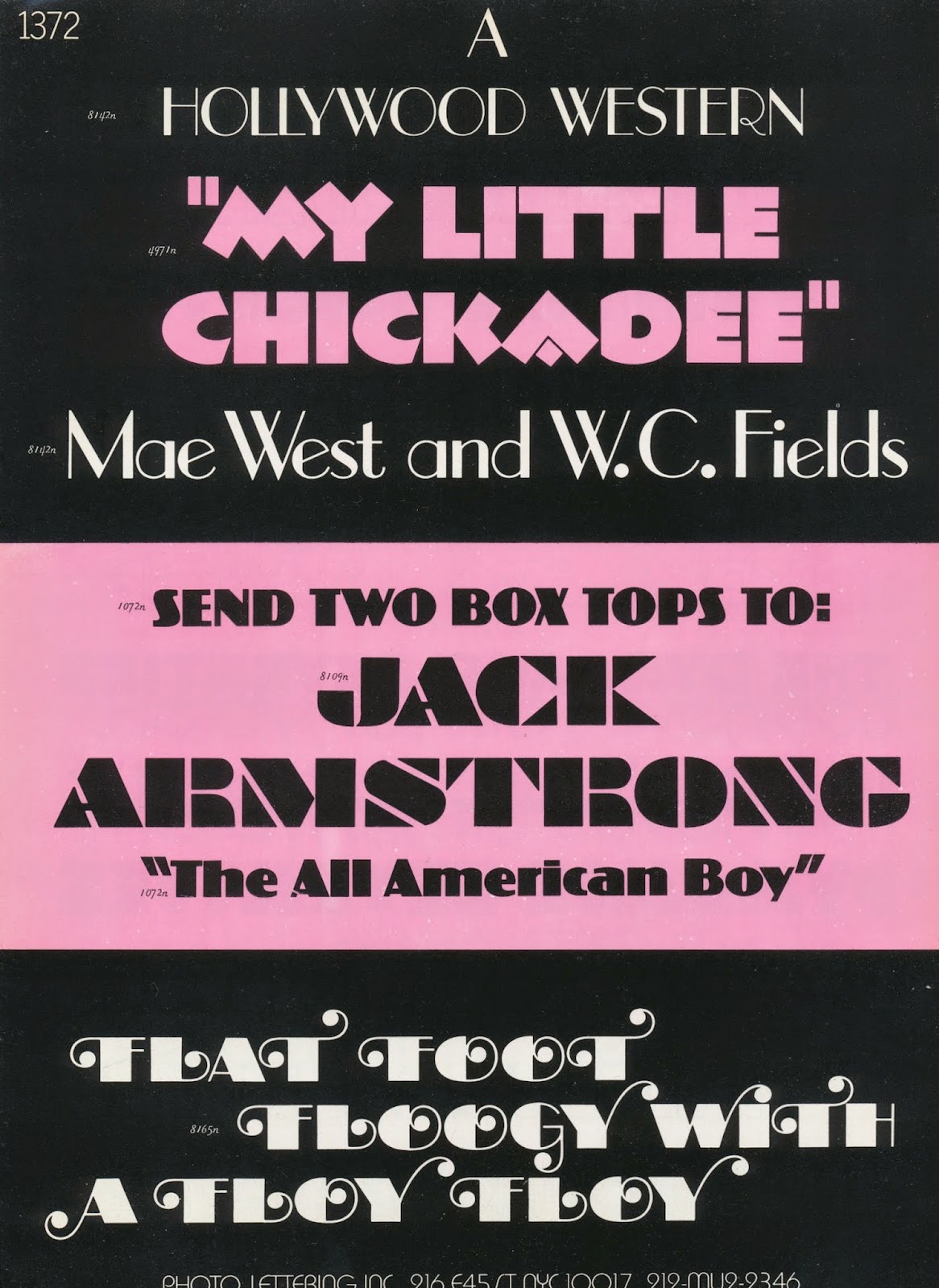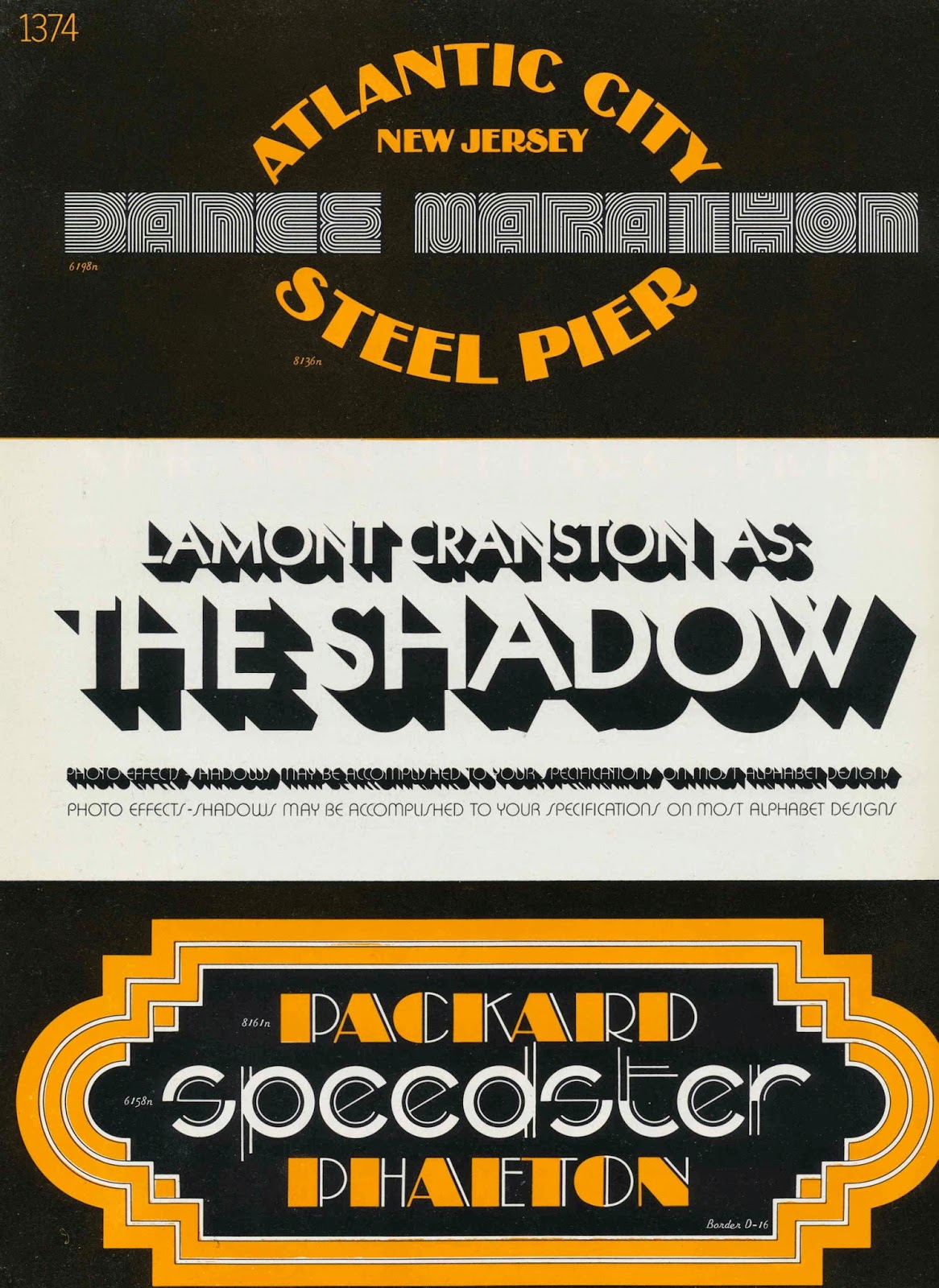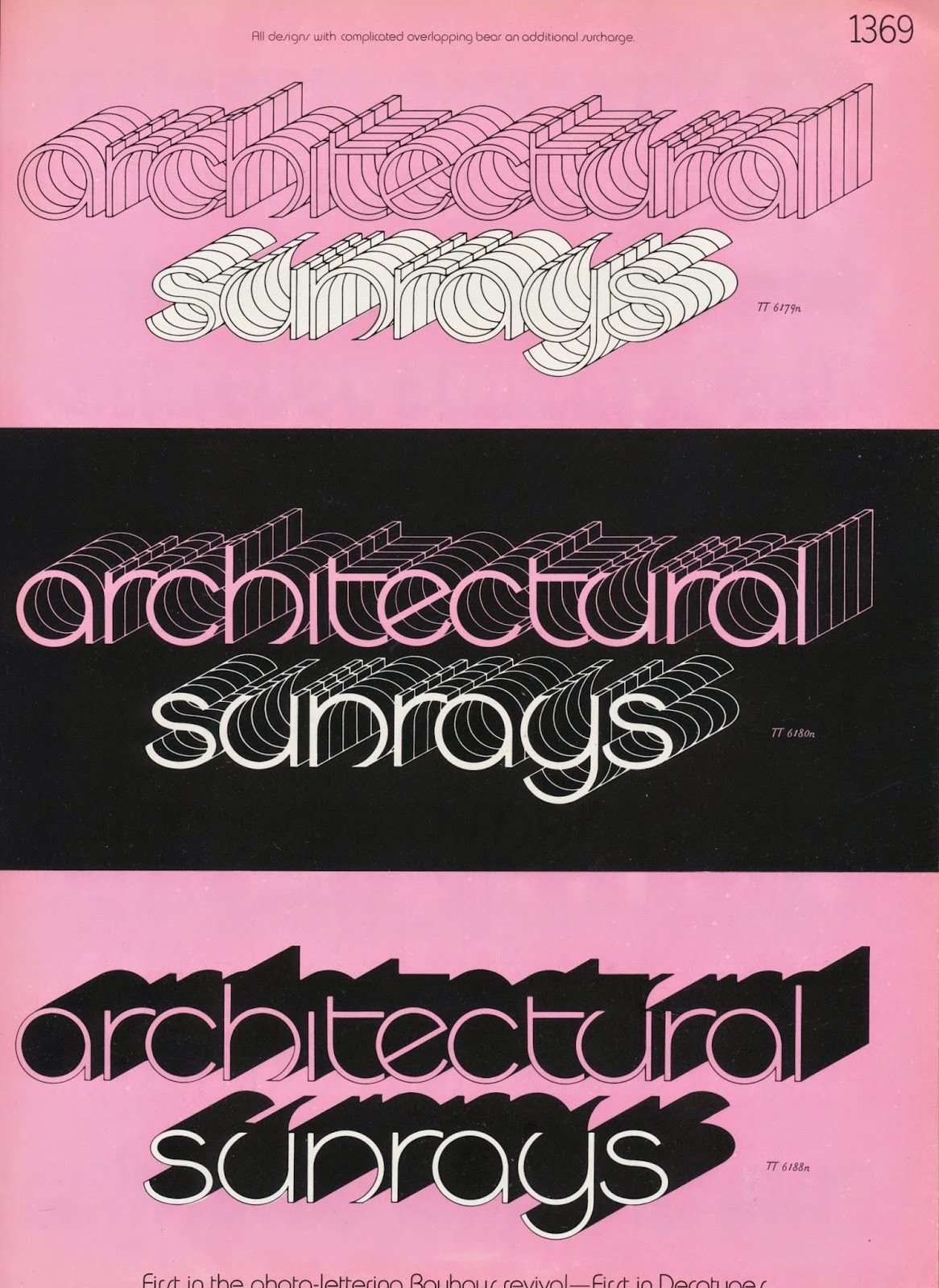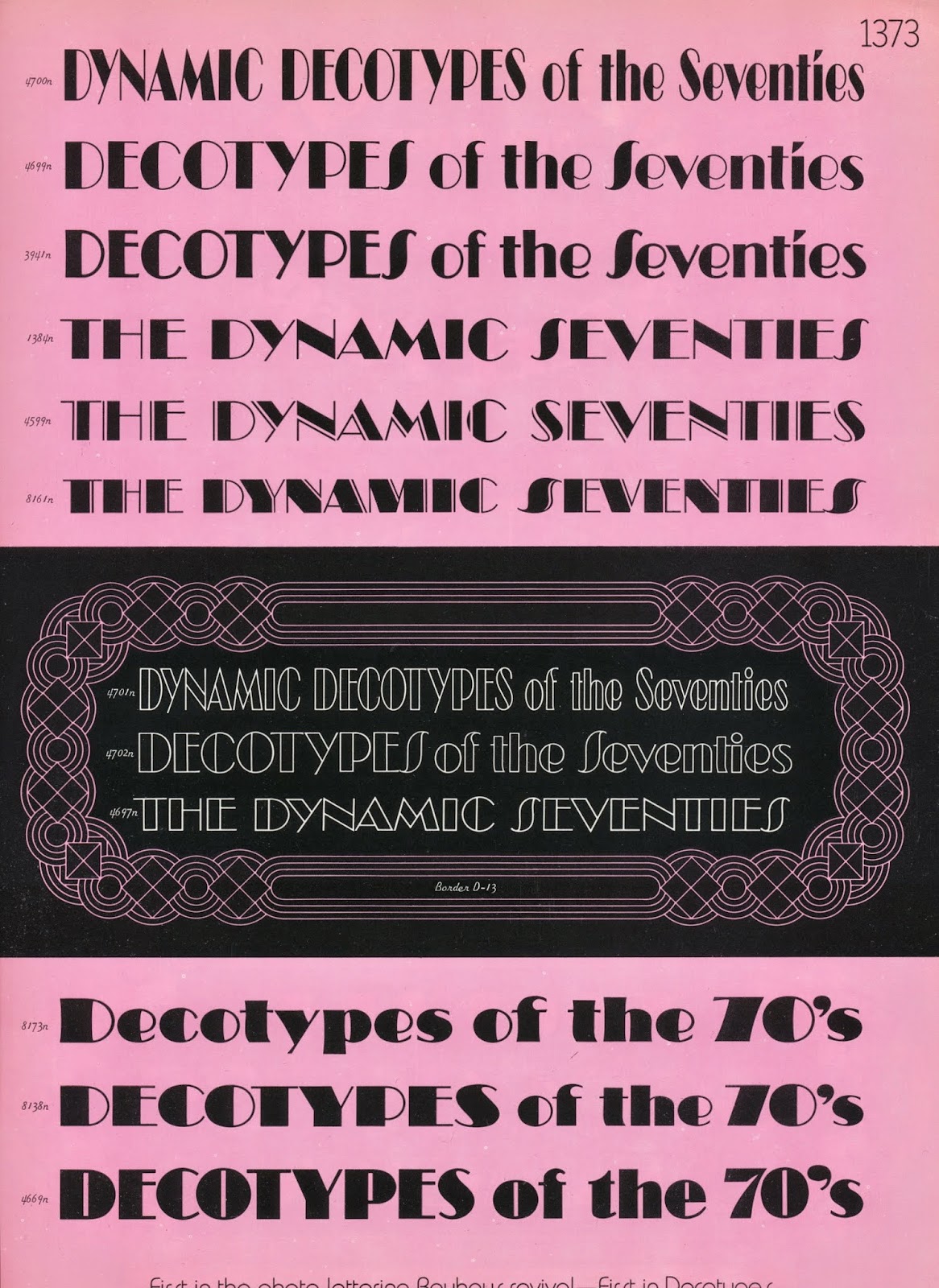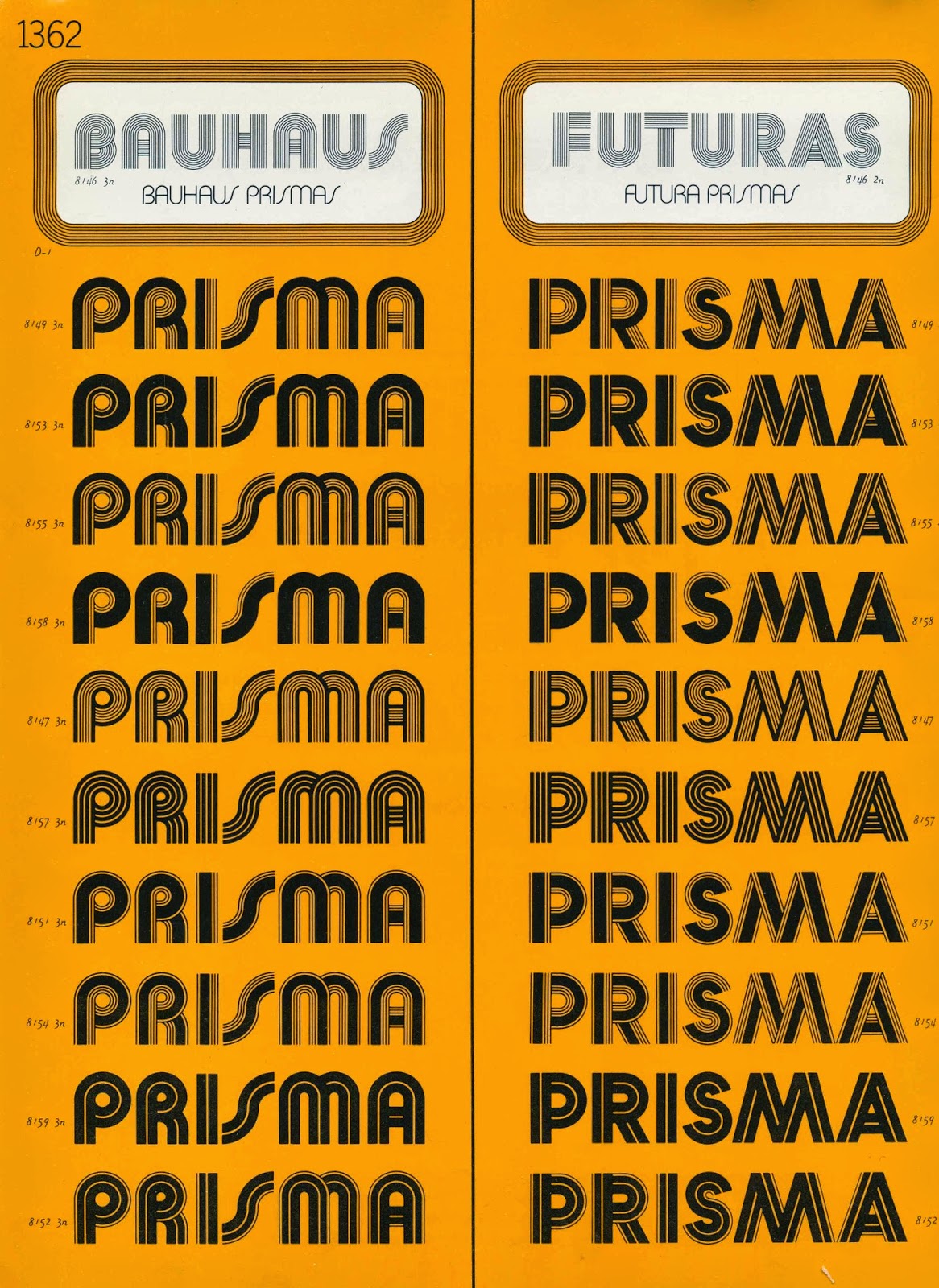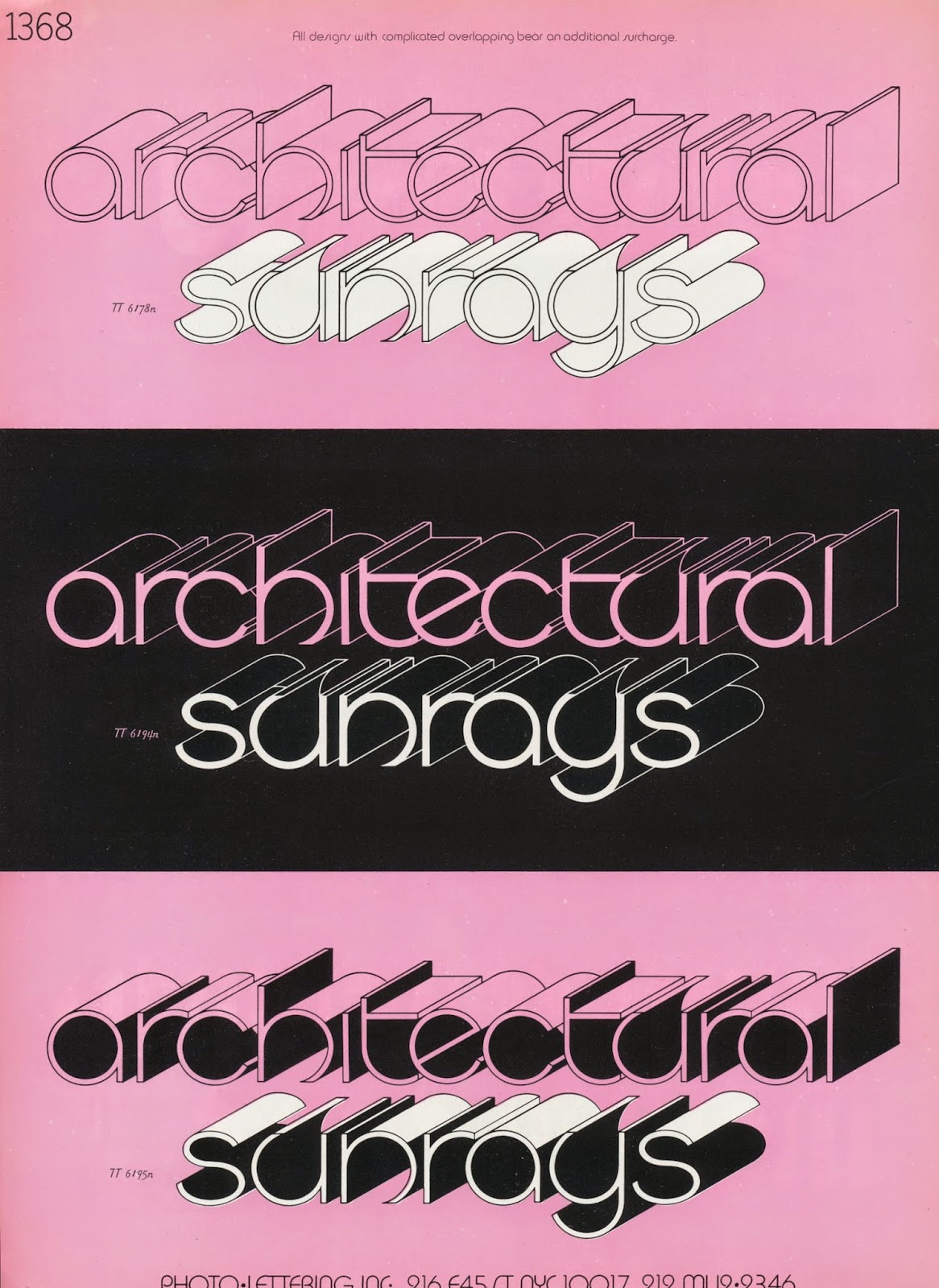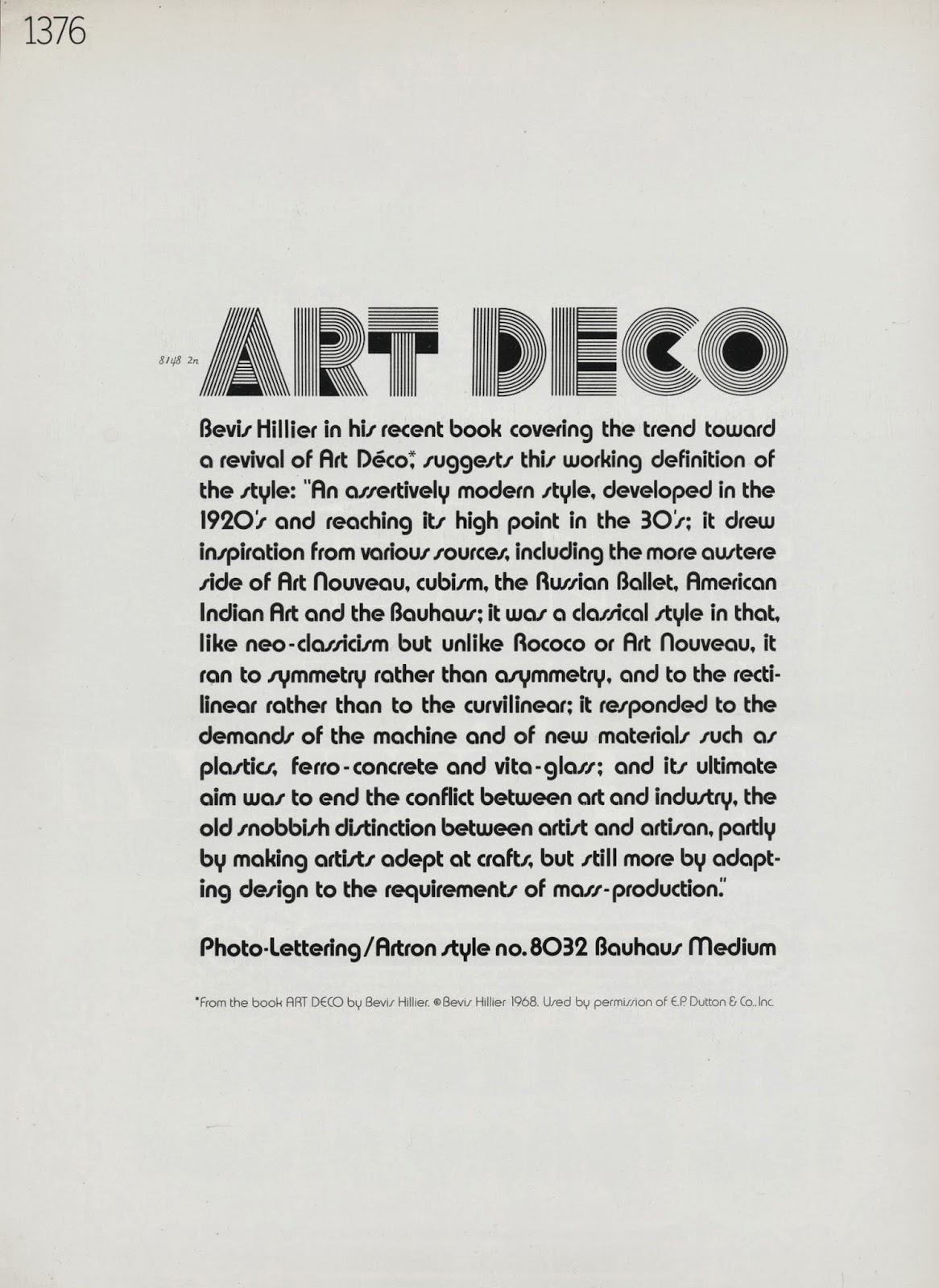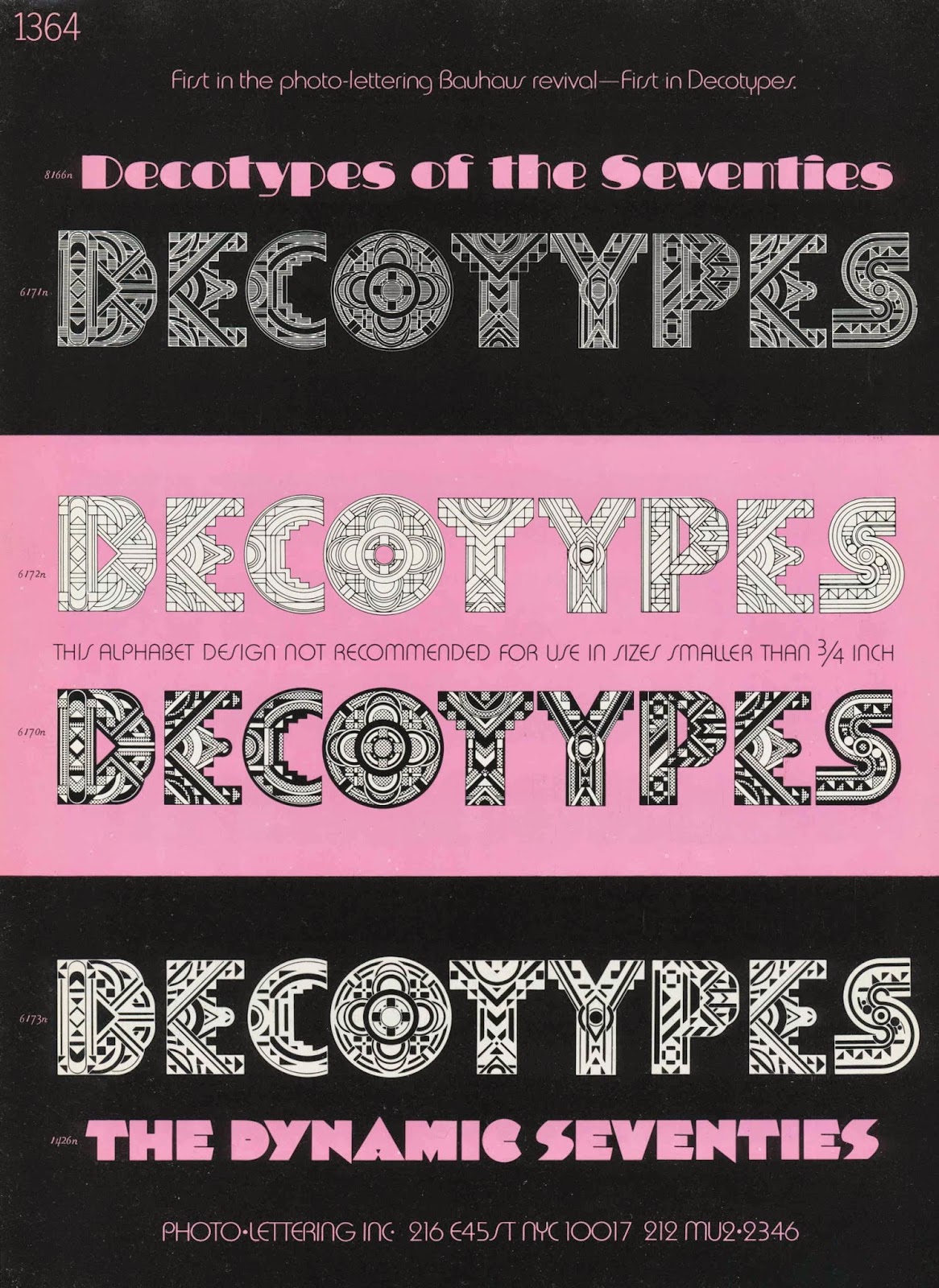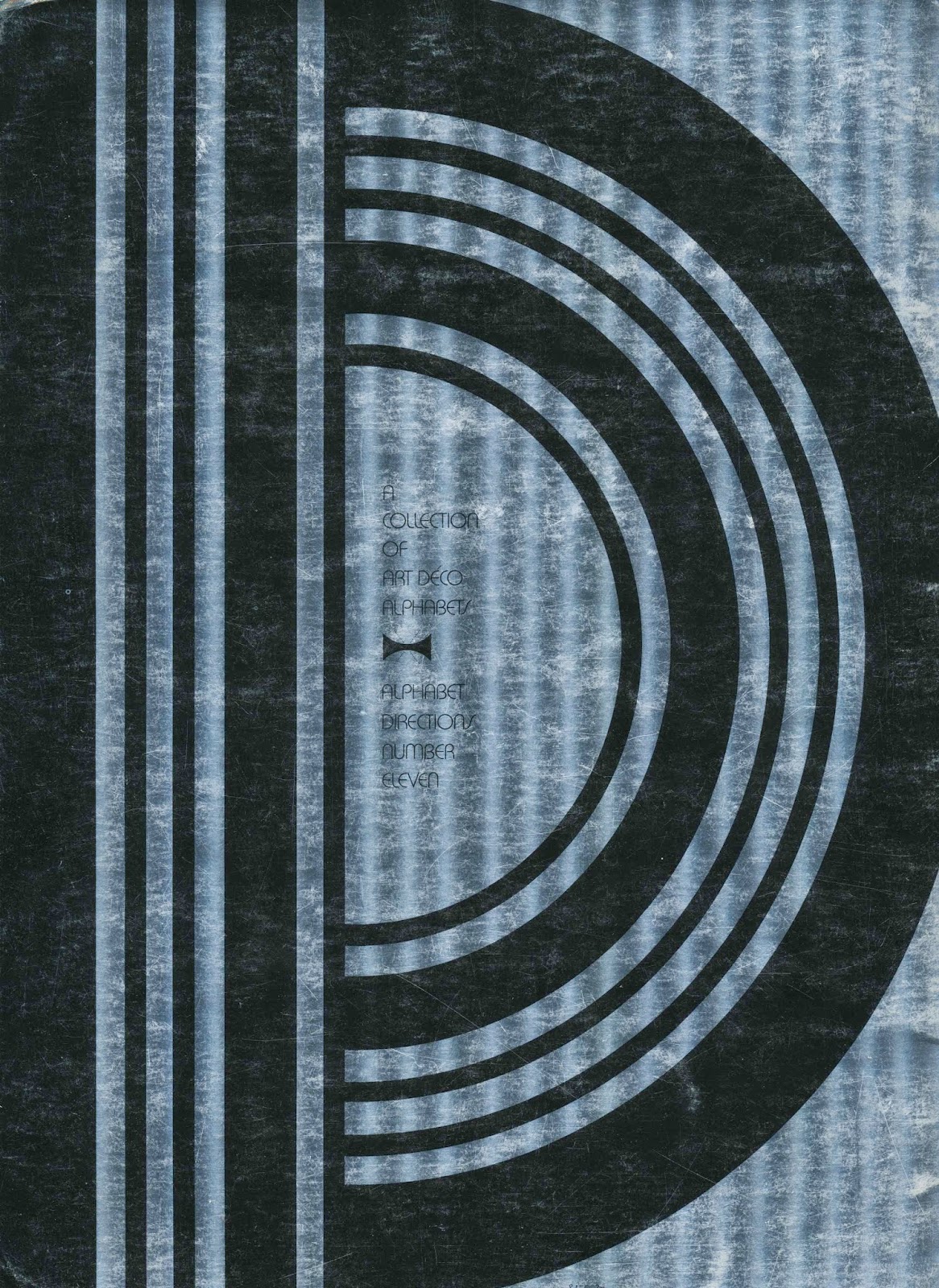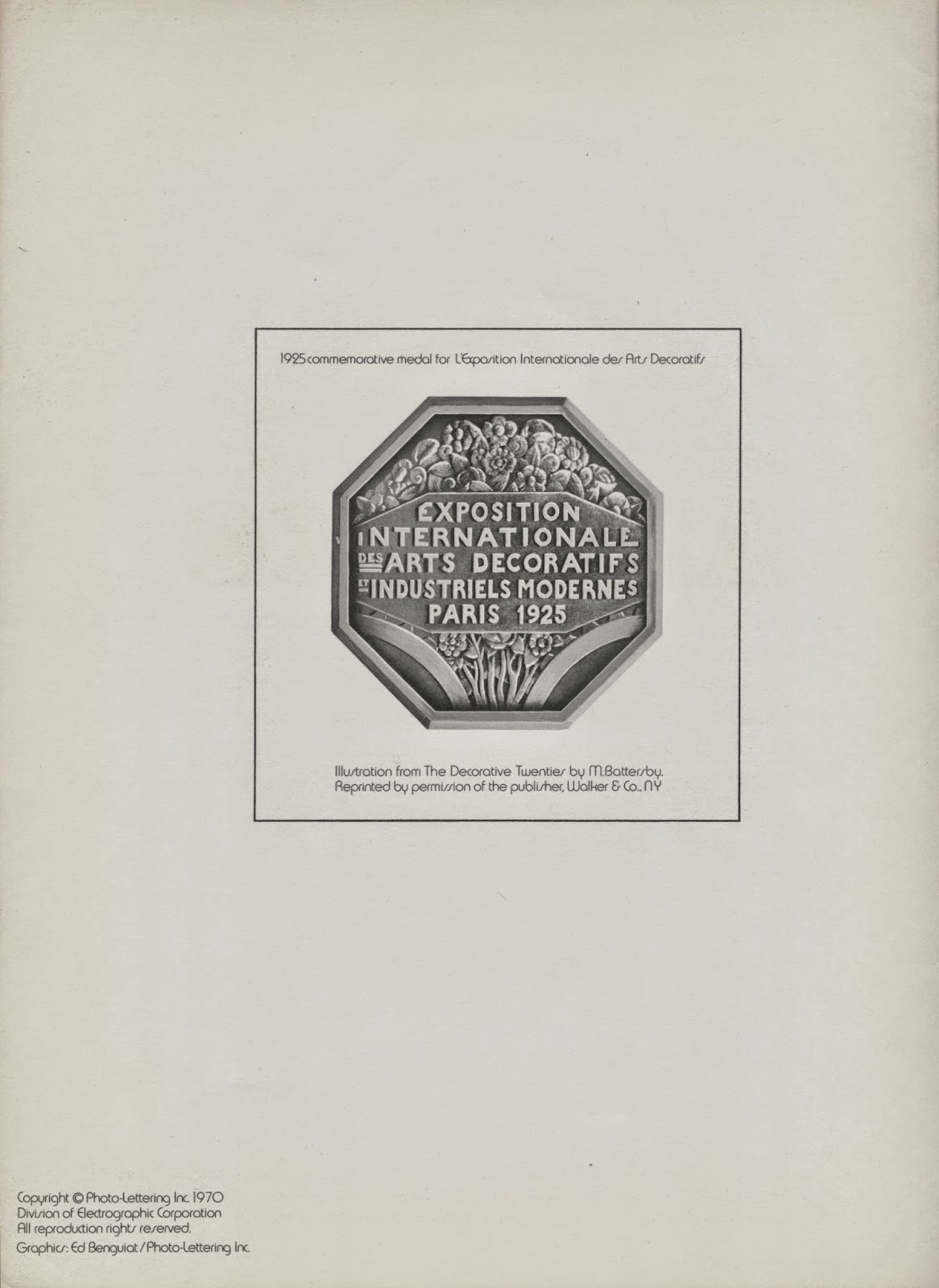
Alphabets: Photo-Lettering’s Decotypes
Art Deco
Photo-Lettering Inc.’s Decotype
1970 booklet design by Ed Benguiat
detail of covers and interior pages